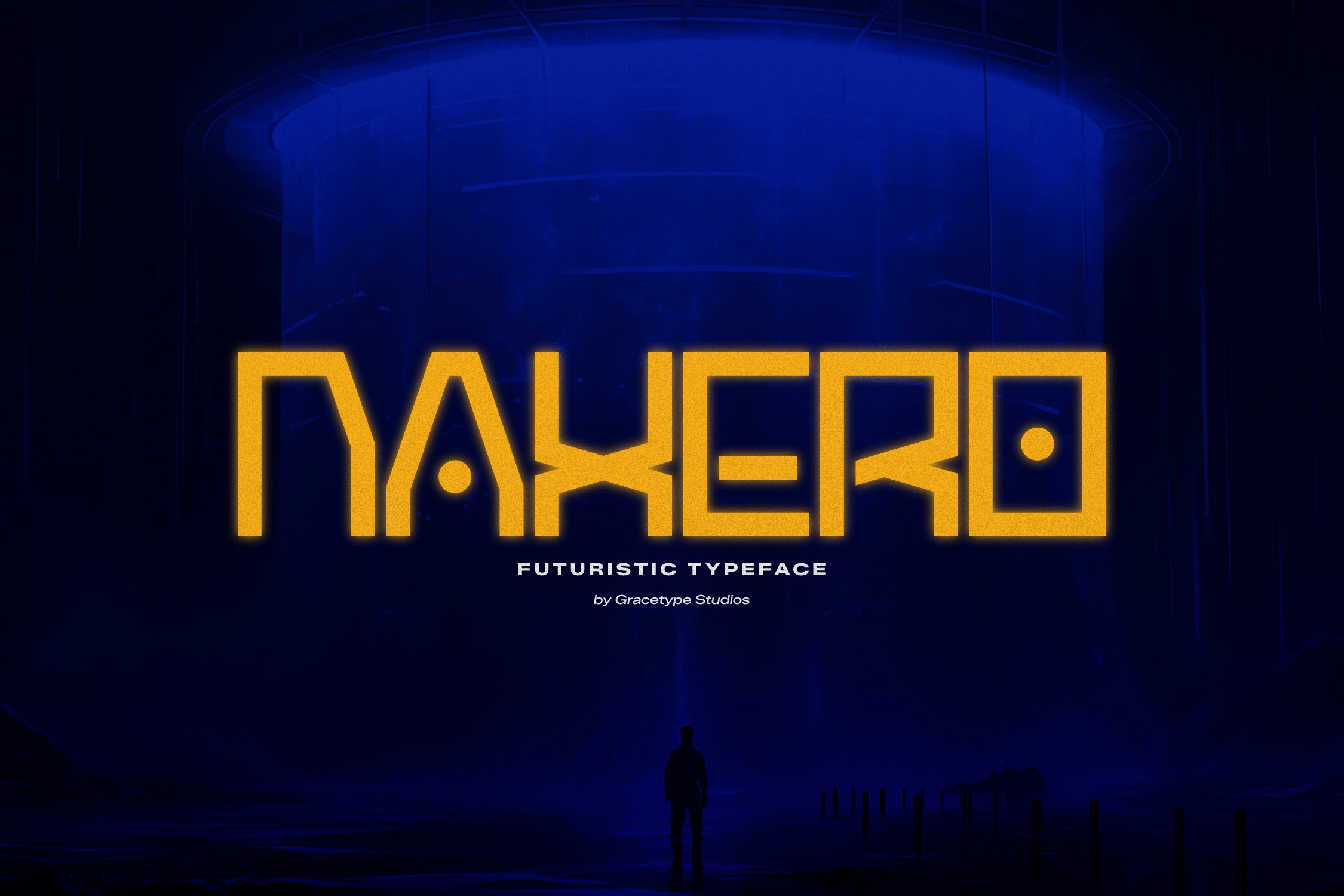
Naxero Font
Naxero Font is a premium-quality font developed to enhance your work with a polished, modern, and visually elevated look. Naxero | Futuristic Typeface, from Gracetypestudio, suitable for any projects such as: logos, branding projects, homeware designs, product packaging, mugs, quotes, posters, shopping bags, t-shirts, book covers, name card, invitation cards, greeting cards, label, photography, watermark, special events, and all your other lovely projects that need a Futuristic taste.